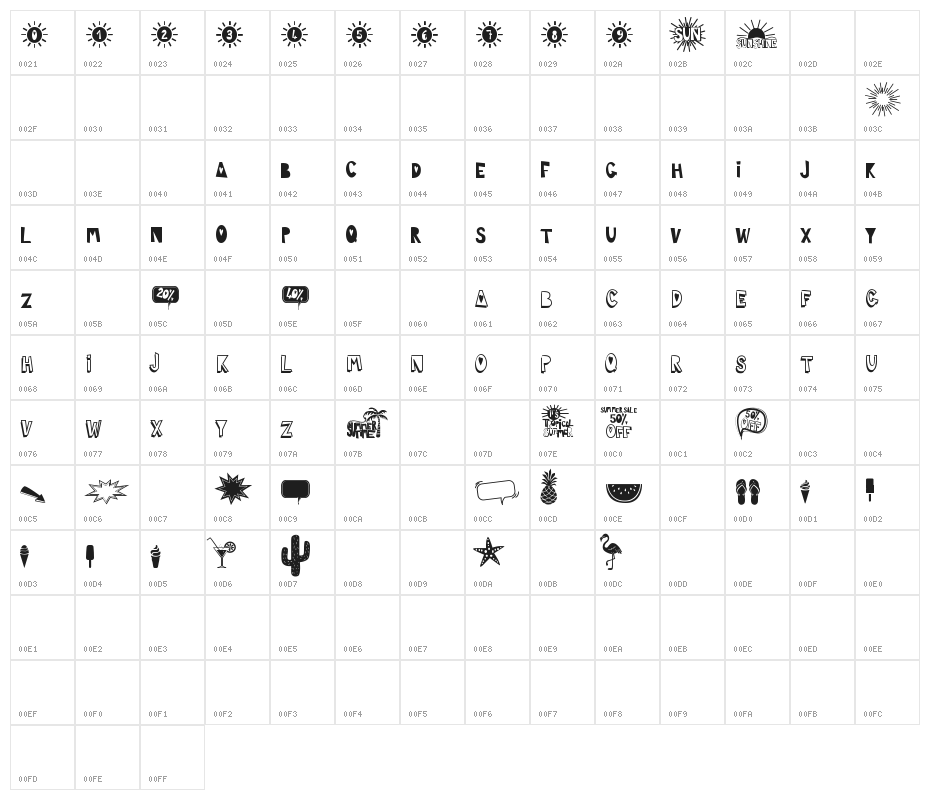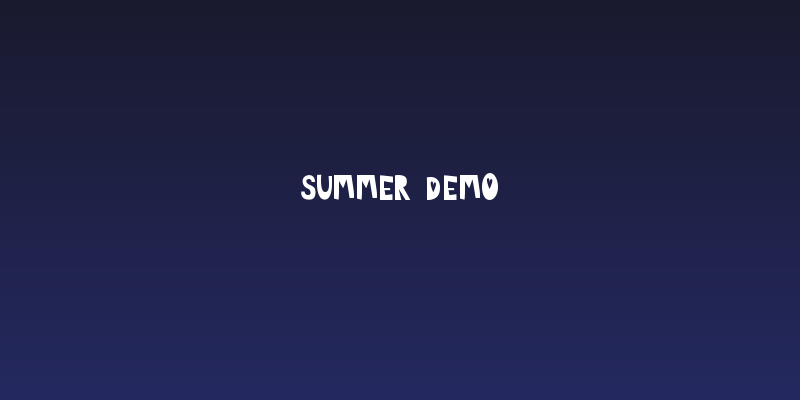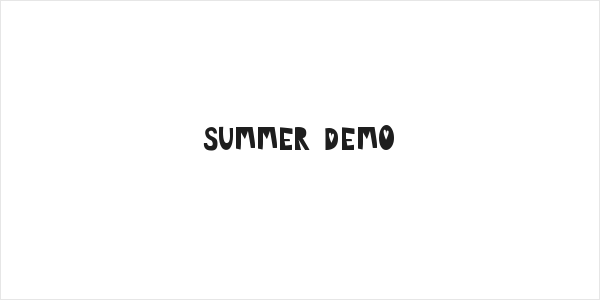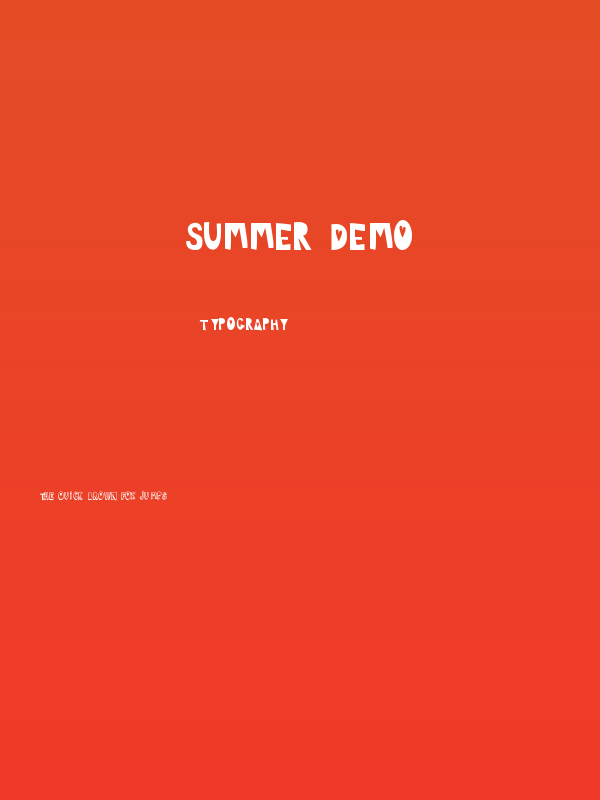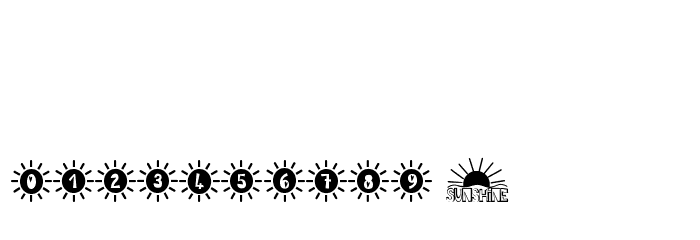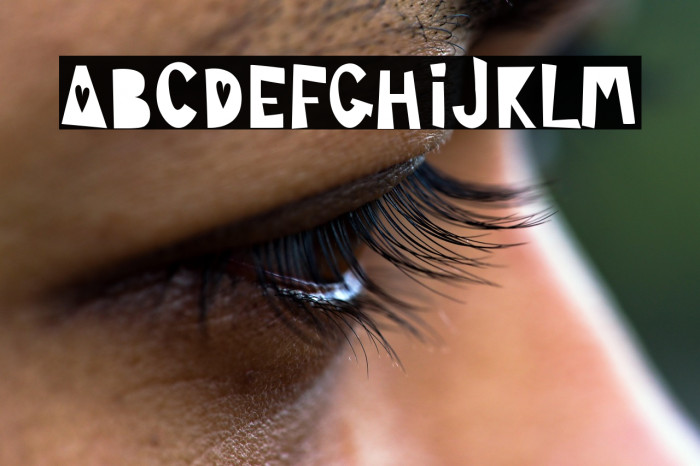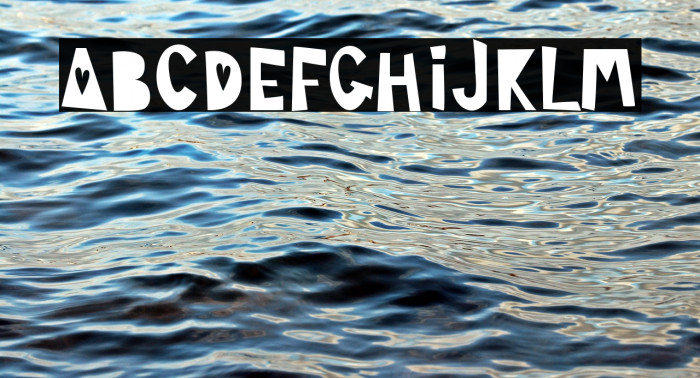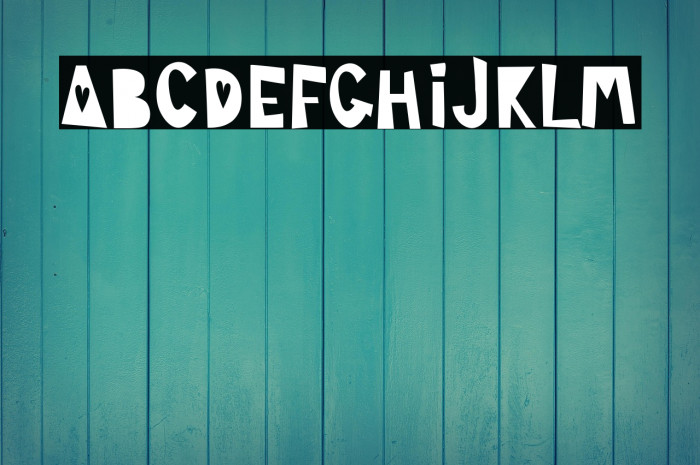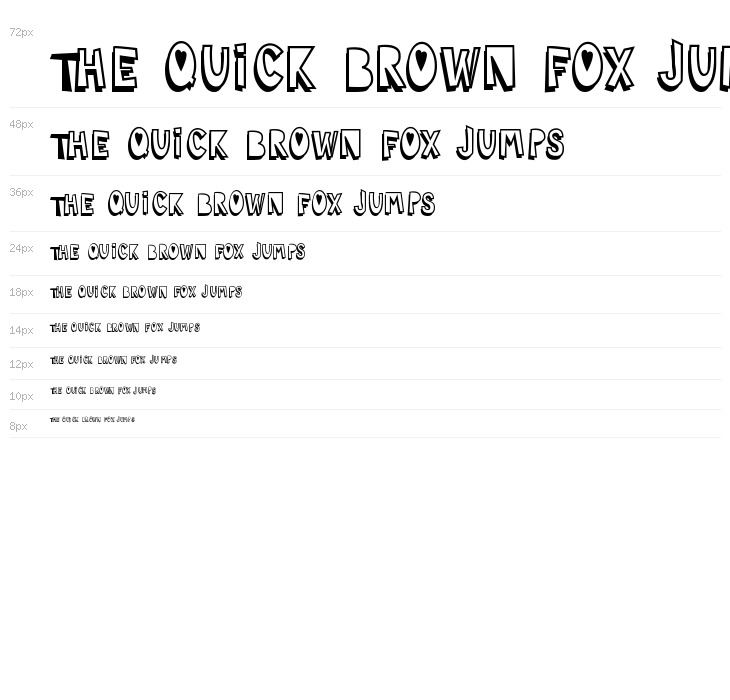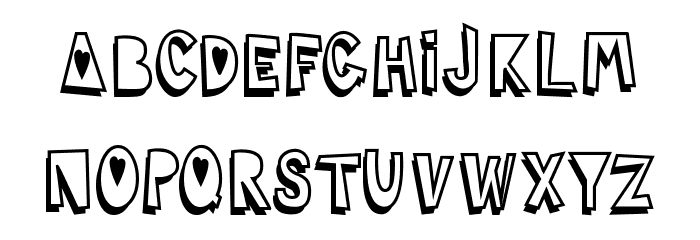
SUMMER DEMO Font
This playful and bold font features a whimsical and irregular design, with each character exhibiting a unique and quirky style. The uppercase letters are characterized by their chunky and uneven shapes, giving them a lively and dynamic appearance. The lowercase letters maintain this playful aesthetic, with a slightly more compact form. The numbers are encased in sun-like symbols, adding to the font's cheerful and summery vibe. Special characters are creatively integrated, enhancing the overall fun and decorative nature of the typeface. This font is perfect for projects that require a lighthearted and energetic touch.
| Overall Style | Playful, Whimsical, Energetic |
| Use Case | Headlines, Posters, Creative Branding |
| Proposed Projects | Ideal for children's books, summer event posters, playful branding, and creative social media graphics. |